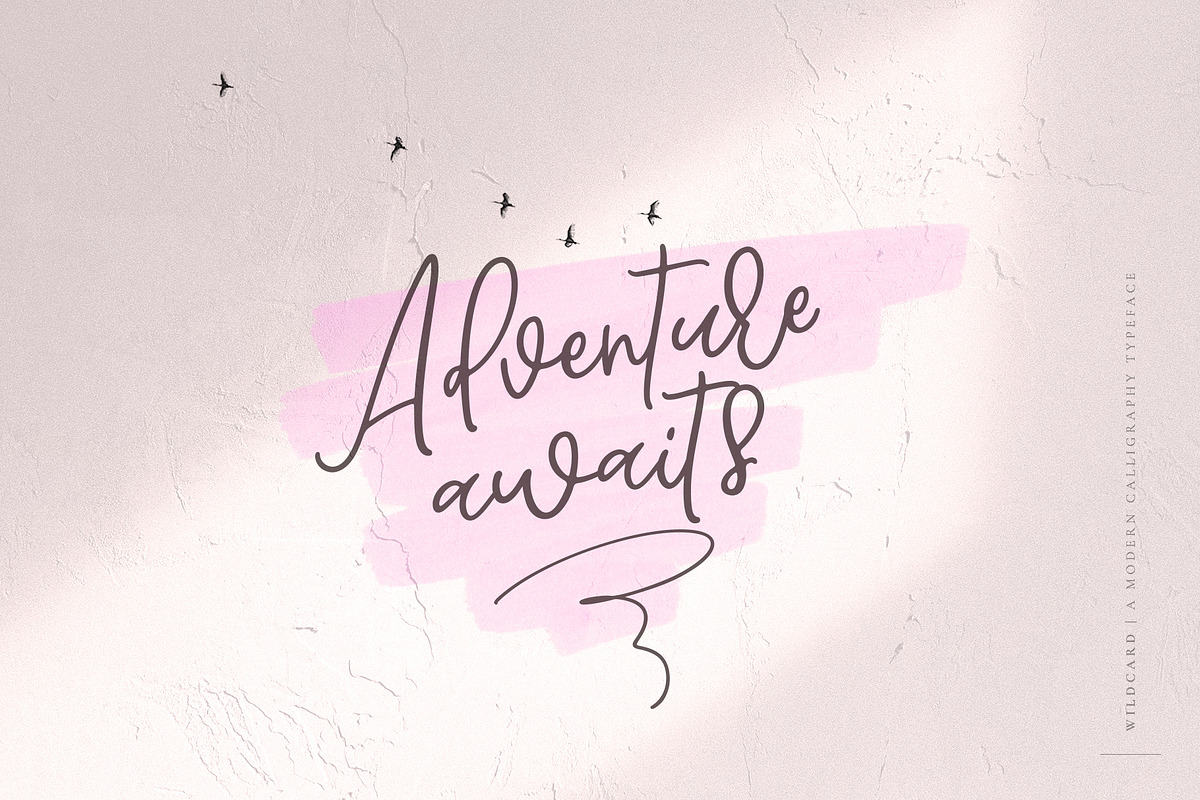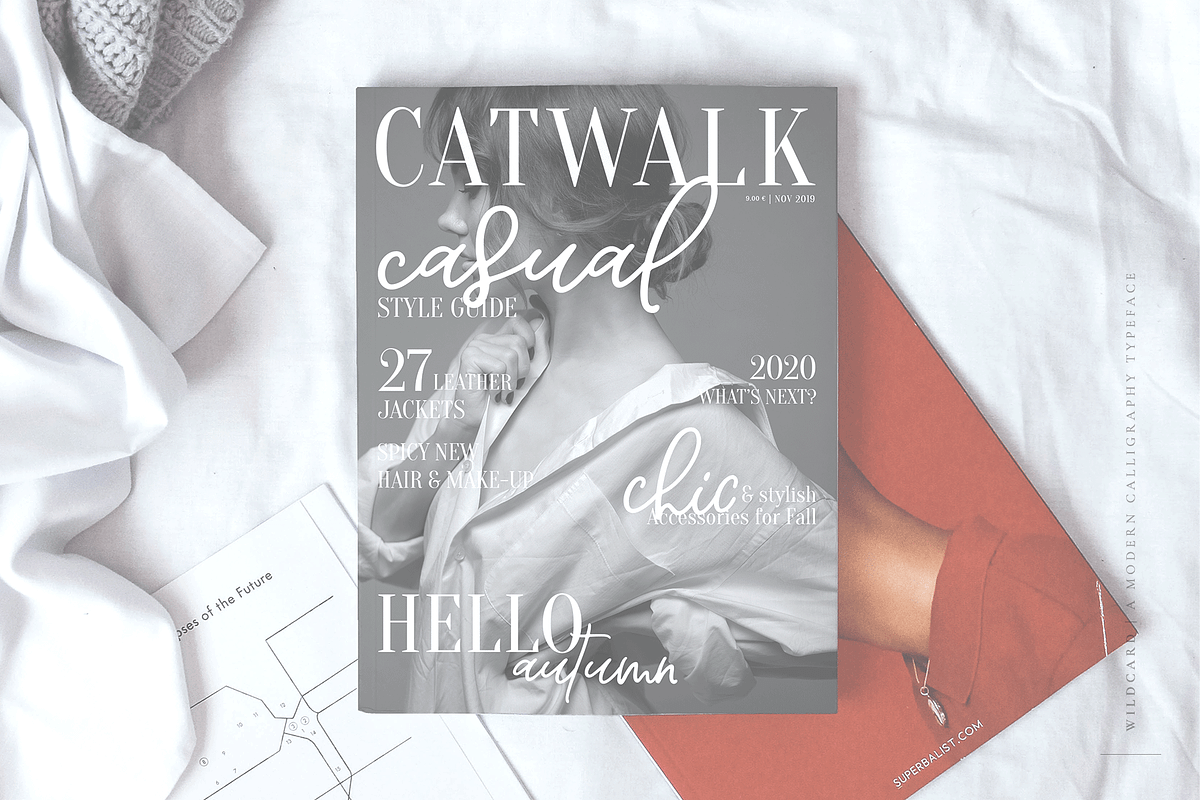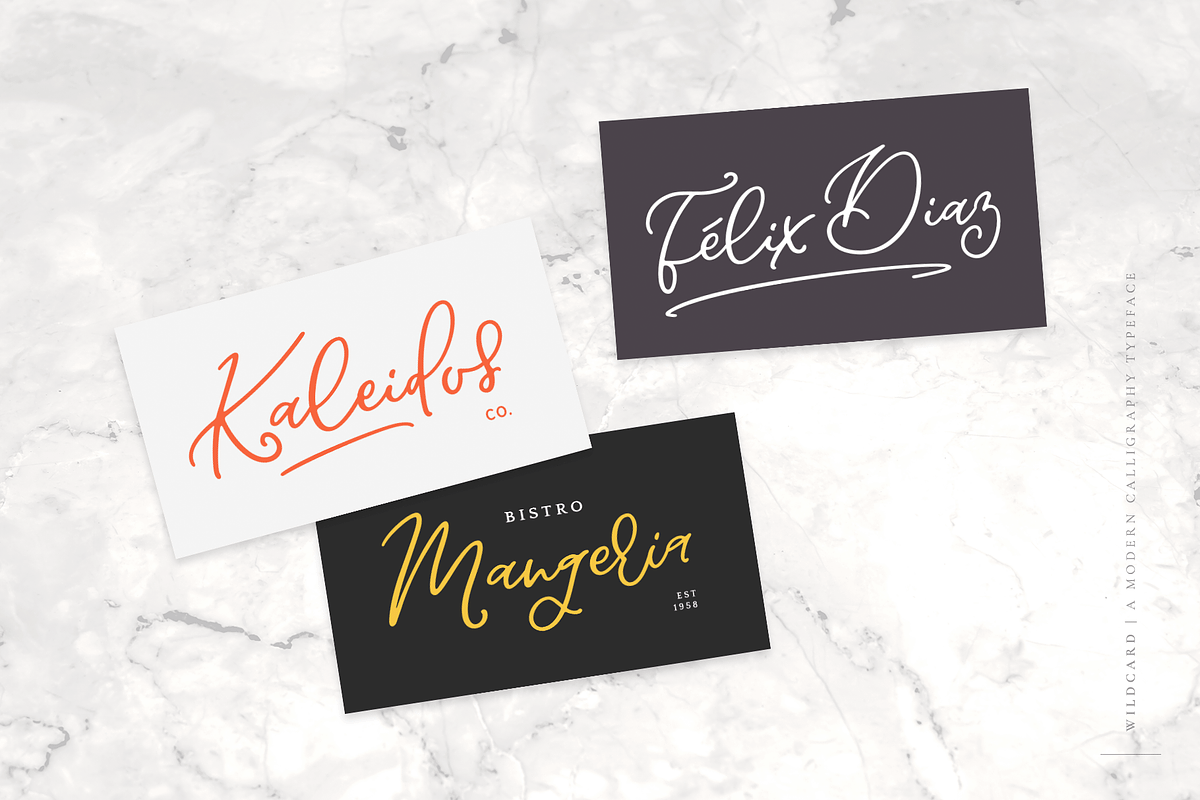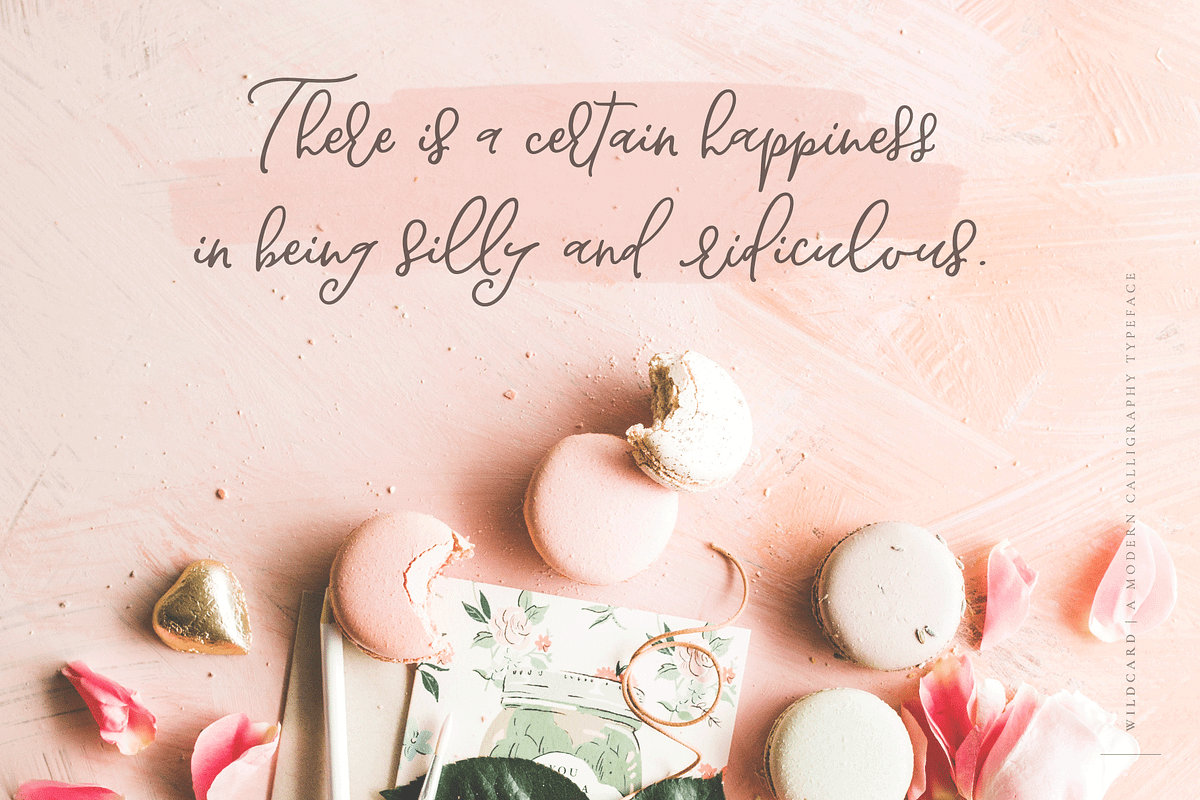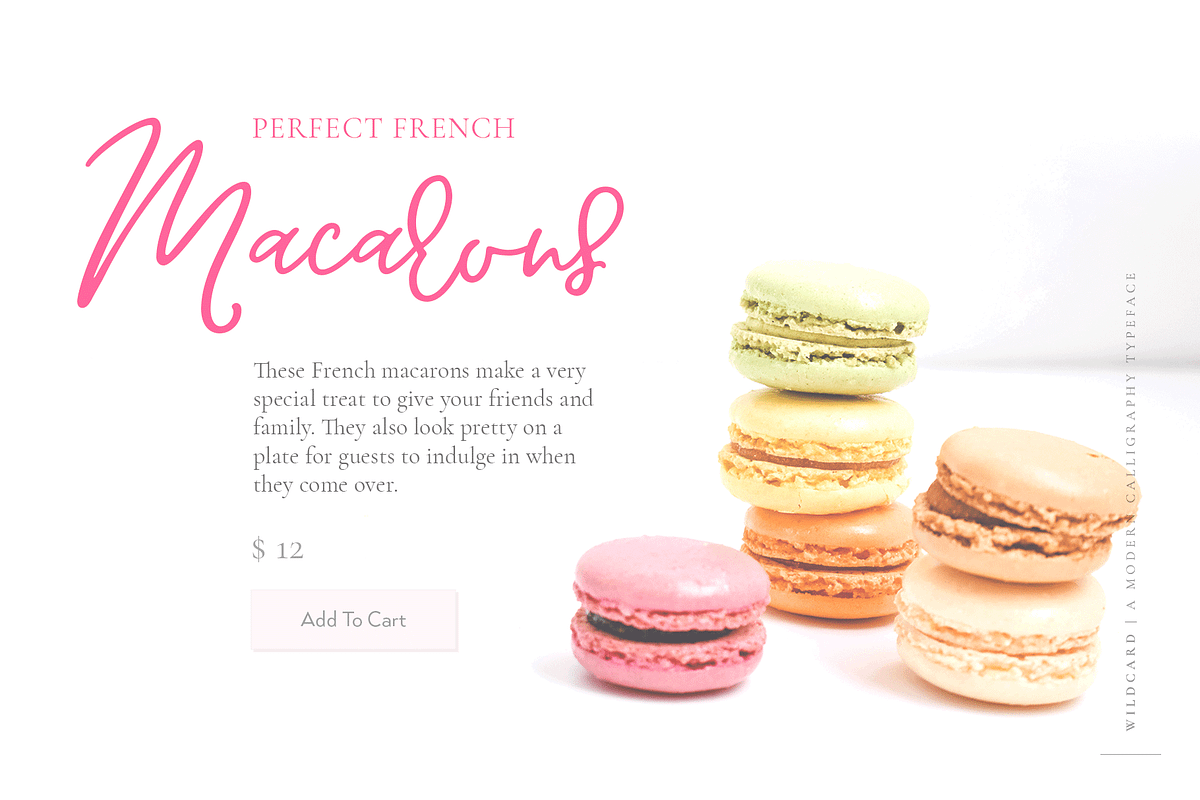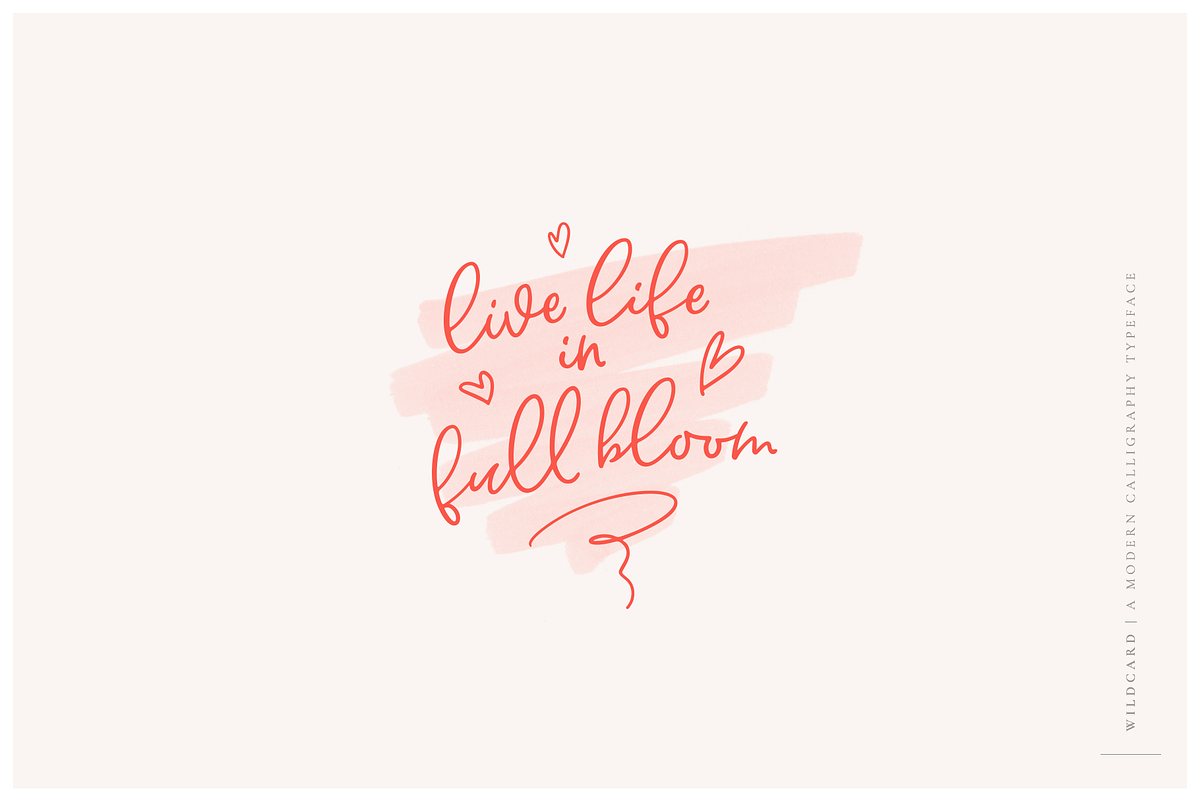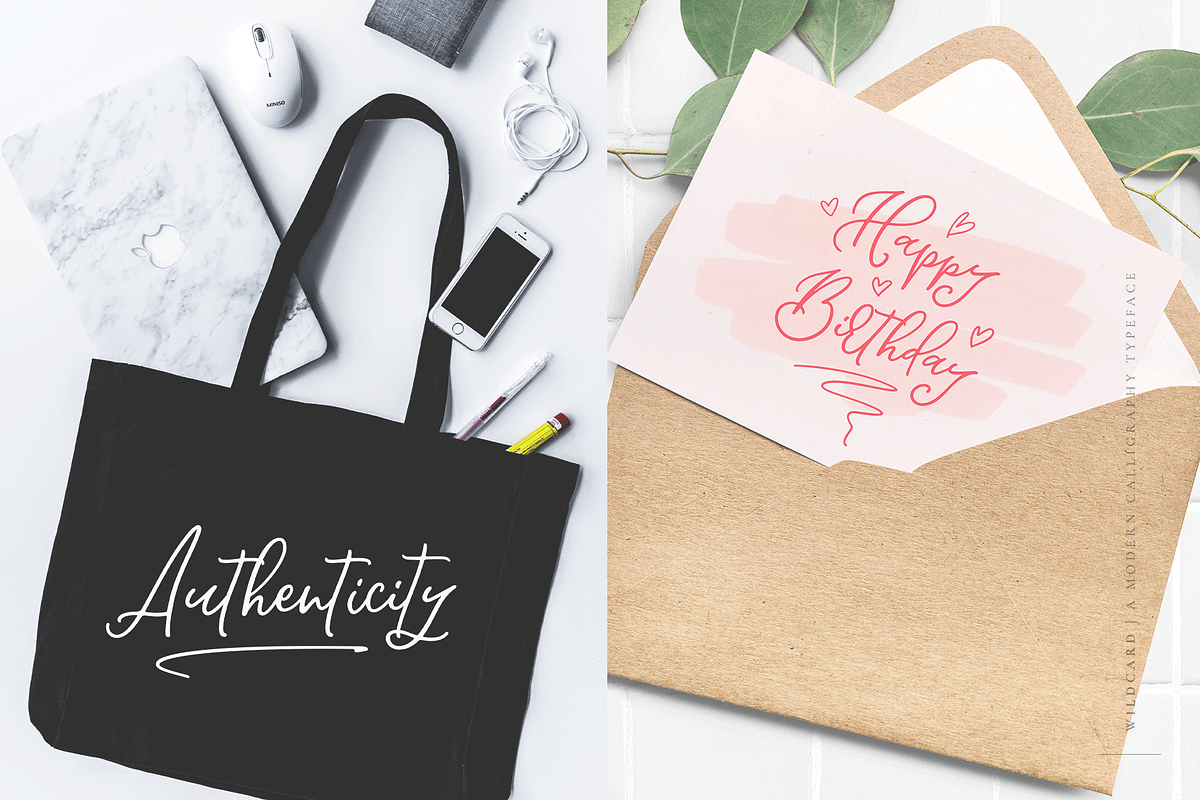
Wildcard | Modern Calligraphy Font
Wildcard is an elegant modern calligraphy font with a bouncy baseline. It’s perfect for logo design & branding projects, wedding invitations, social media layouts, greeting cards, POD products, packaging, etc.
Wildcard also has a matching Swash font as part of the family.
Uppercase & Lowercase Letters
Alternate Uppercase & Lowercase Letters
A Matching Swash Font
- Wildcard comes with a full set of alternate letters to create the uniquely hand-lettered look.
- FEATURES Uppercase & Lowercase Letters Alternate Uppercase & Lowercase Letters Terminal Letters Ligatures A Matching Swash Font Multilingual